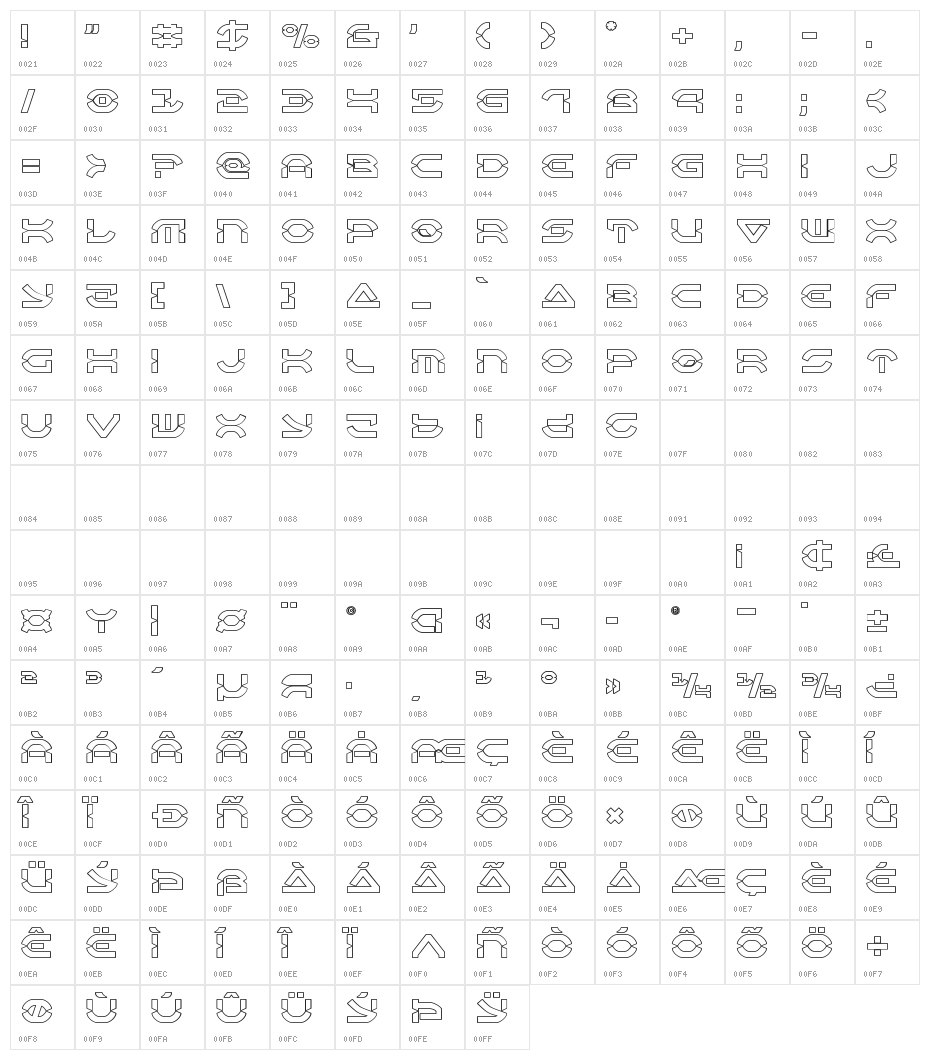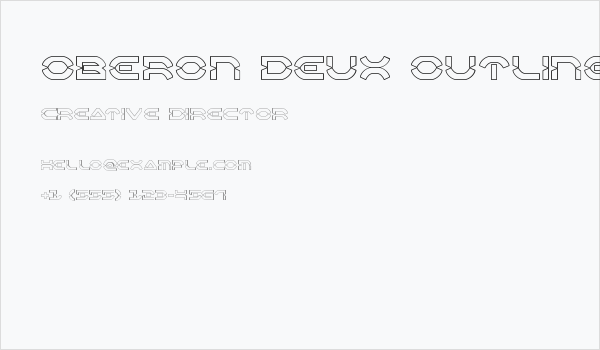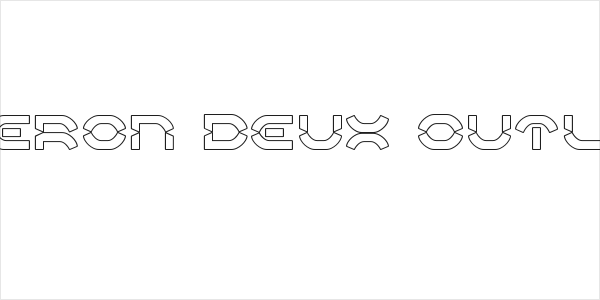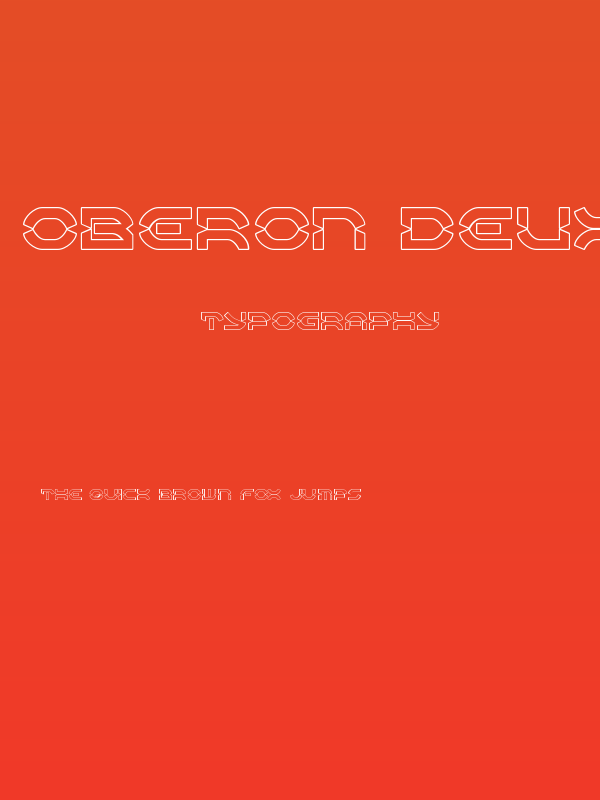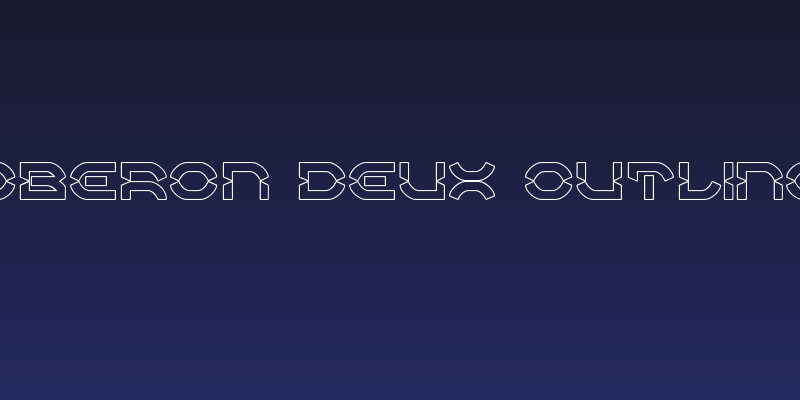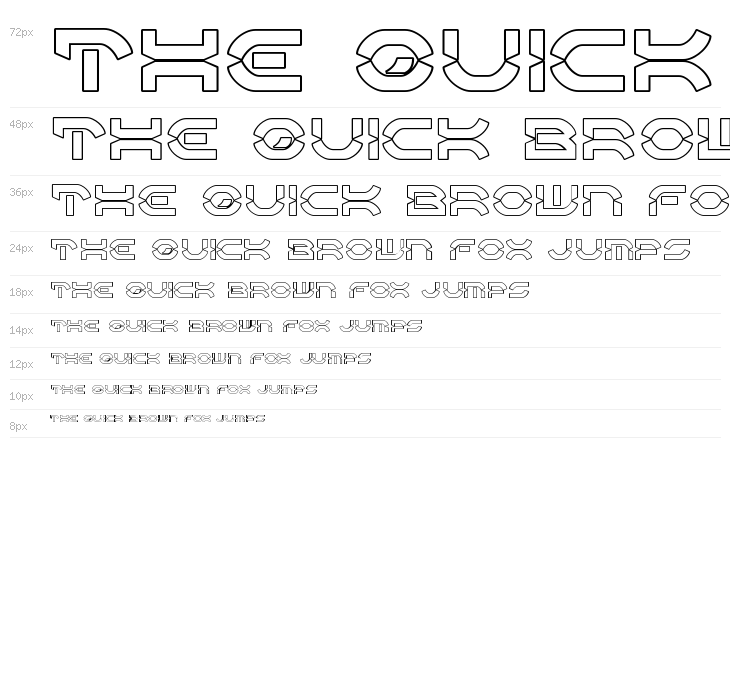
Oberon Deux Outline Font
Oberon Deux Outline Description
This font features a unique outline style with a futuristic and geometric design. The characters are constructed with bold, angular lines that create a sense of movement and modernity. Each letter is distinct, with sharp edges and a consistent stroke width that maintains clarity and readability. The font's outline nature gives it a lightweight appearance, making it suitable for creative and eye-catching designs. The numbers and special characters follow the same design principles, ensuring a cohesive look across all elements.
| Proposed Projects | Ideal for sci-fi themed projects, modern branding, posters, and digital artwork. |